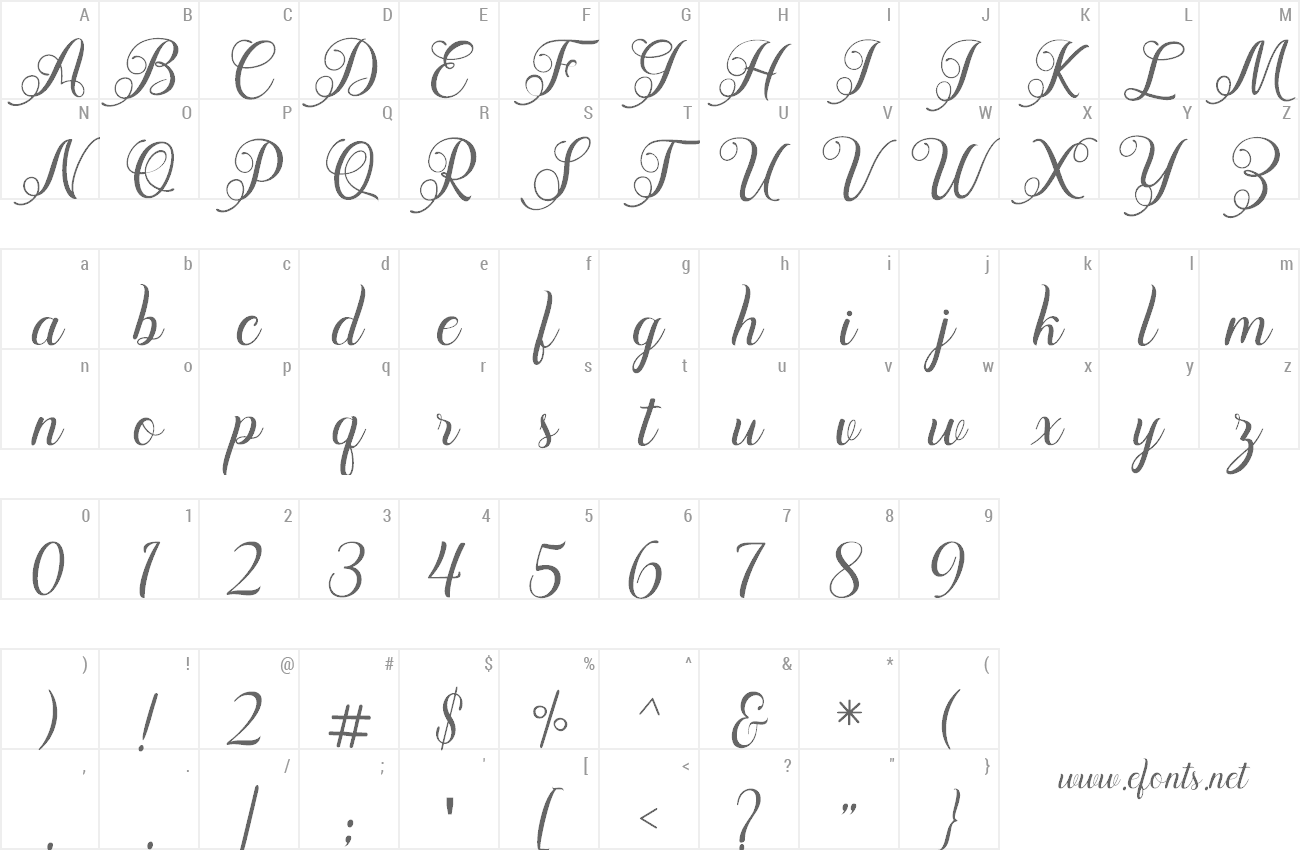
| Font name: | Acapella Script |
| Author: | Scooth Type |
| Note by Scooth Type | |
Acapella Script is a modern handwritten font with handwriting suitable for, T-shirts, brand projects, logos, greeting cards, news, product packaging, all including personal charms etc. This font is equipped with upper and lower case letters, also equipped with unique and beautiful binders and alternatives and international support for most western languages. ** DOWNLOAD $ 1 FONT HERE ** https://thehungryjpeg.com/store/scoothline |